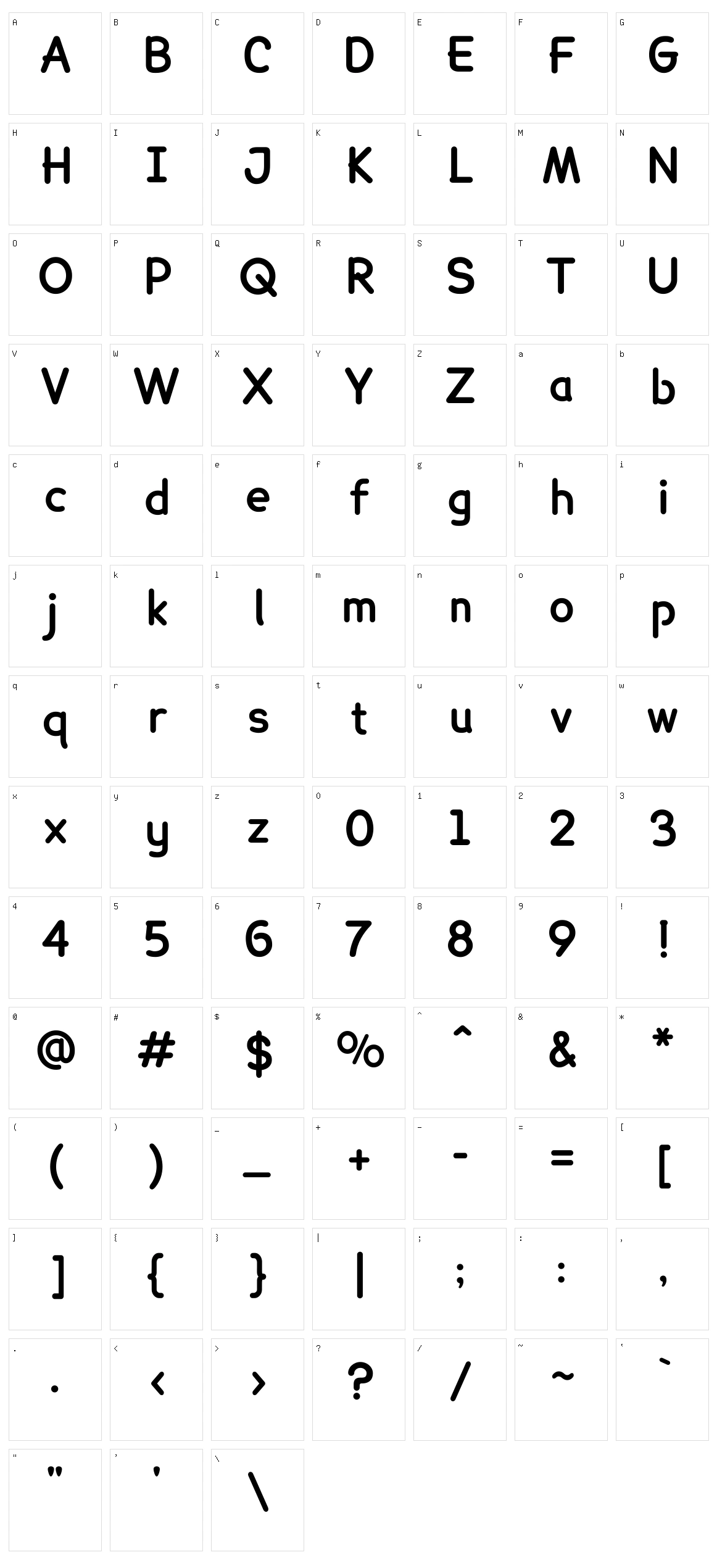
The Lexie Readable family (formerly Lexia Readable) is designed for maximum legibility. K-Type has tried to capture the clarity and accessibility of Comic Sans without the American comic book associations and whimsical, childlike quality which are culturally inappropriate for many uses and may seem patronizing.
Lexie Readable is an attempt to retain the strength, friendliness and legibility of Comic Sans, and even a slightly marker-drawn feel, whilst tidying up the comic book idiosyncrasies. It adds a hint of dignity, a sprinkling of refinement, and introduces elements of designer type to appeal to a contemporary audience.
Whilst Comic Sans has long been a preferred choice for infant typography from 'Baby on Board' stickers onward, its use risks undermining any serious message and appearing condescending to readers with greater visual maturity, issues that are particularly acute when applied to adolescent and adult literacy.
Typographical concerns from recent educational publications and discussions, and some highlighted by the British Dyslexia Association have been incorporated into the design of Lexie Readable - the simpler, handwritten forms of a and g, the non-symmetry of letters such as b and d, good sized descenders and ascenders, generous spacing and excellent screen clarity.
Many more accented characters have been added to each weight to complete the Latin Extended-A range. Several minor outline, spacing and kerning improvements have also been made.
The numeral 9 has been replaced by the more popular, diagonal leg alternative.